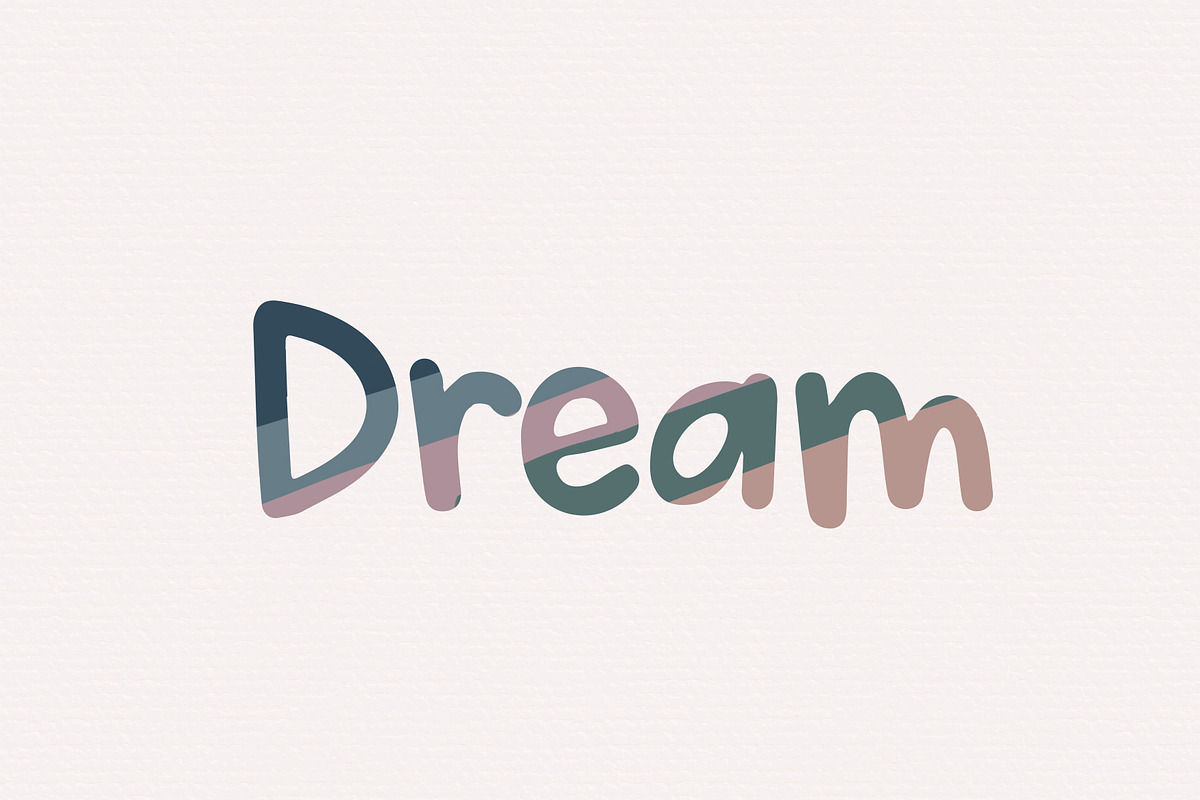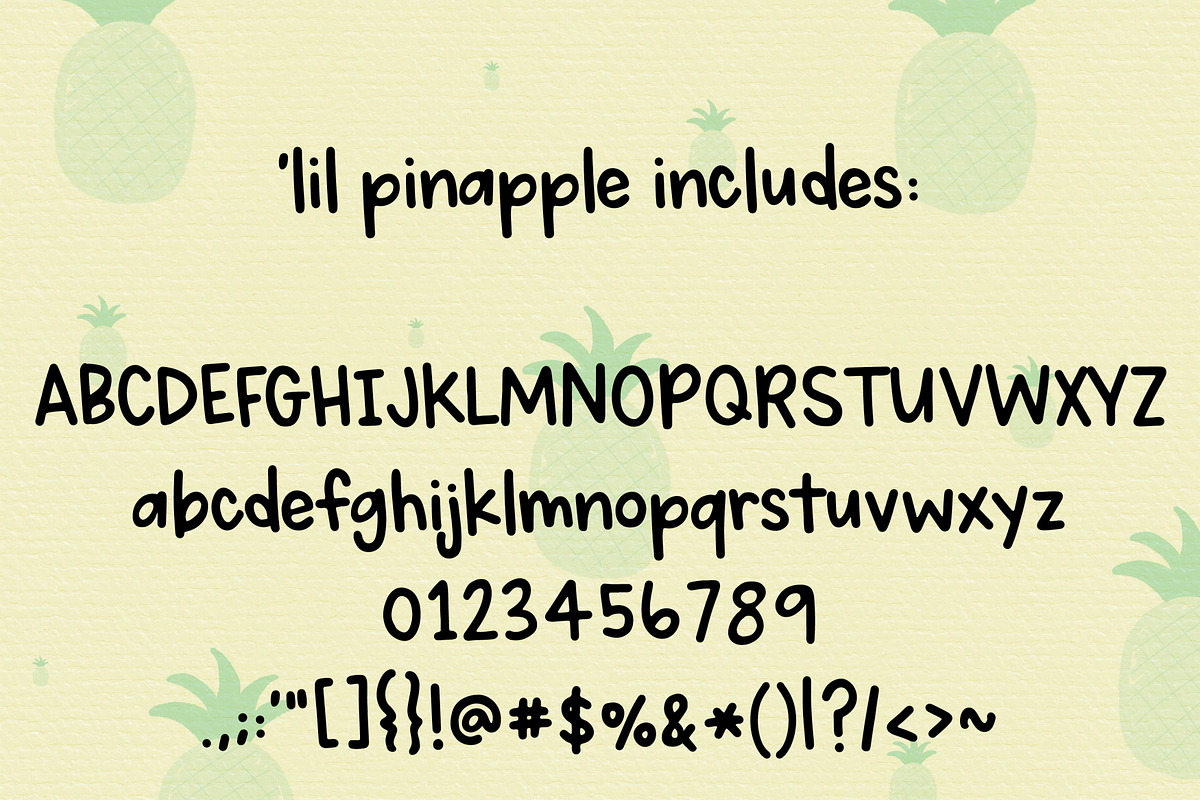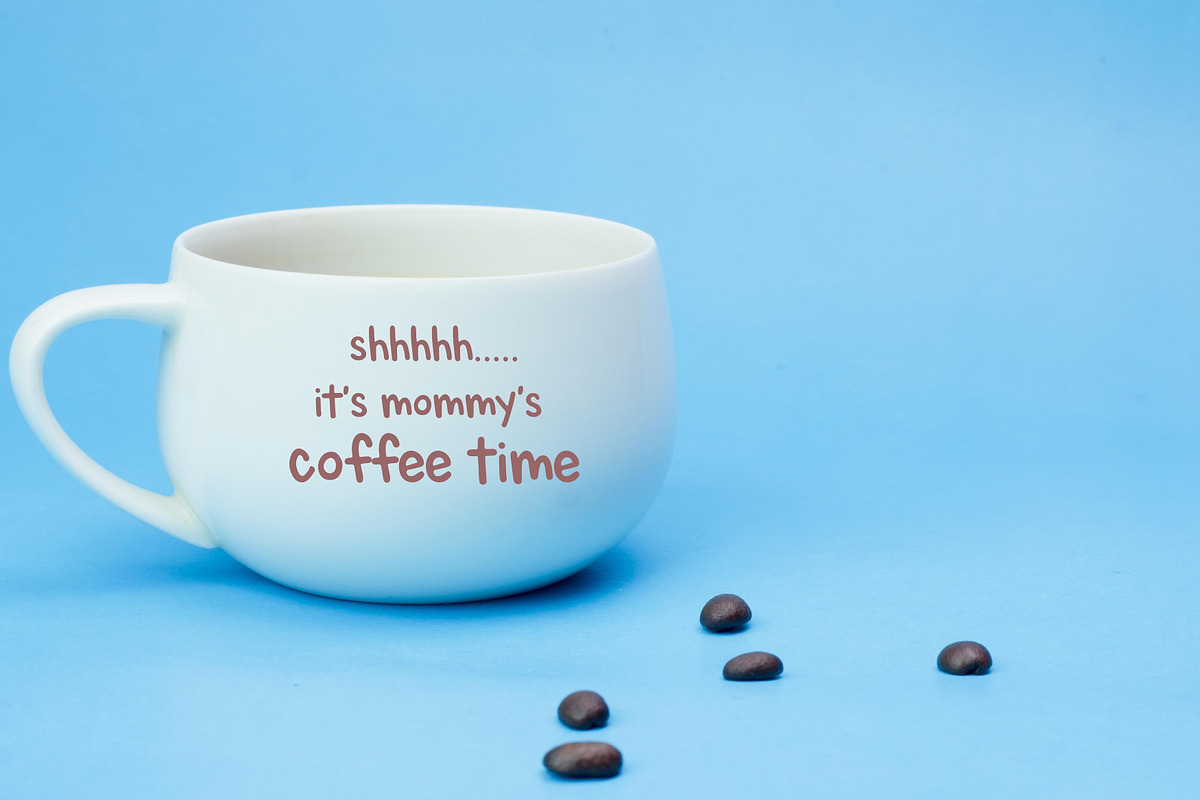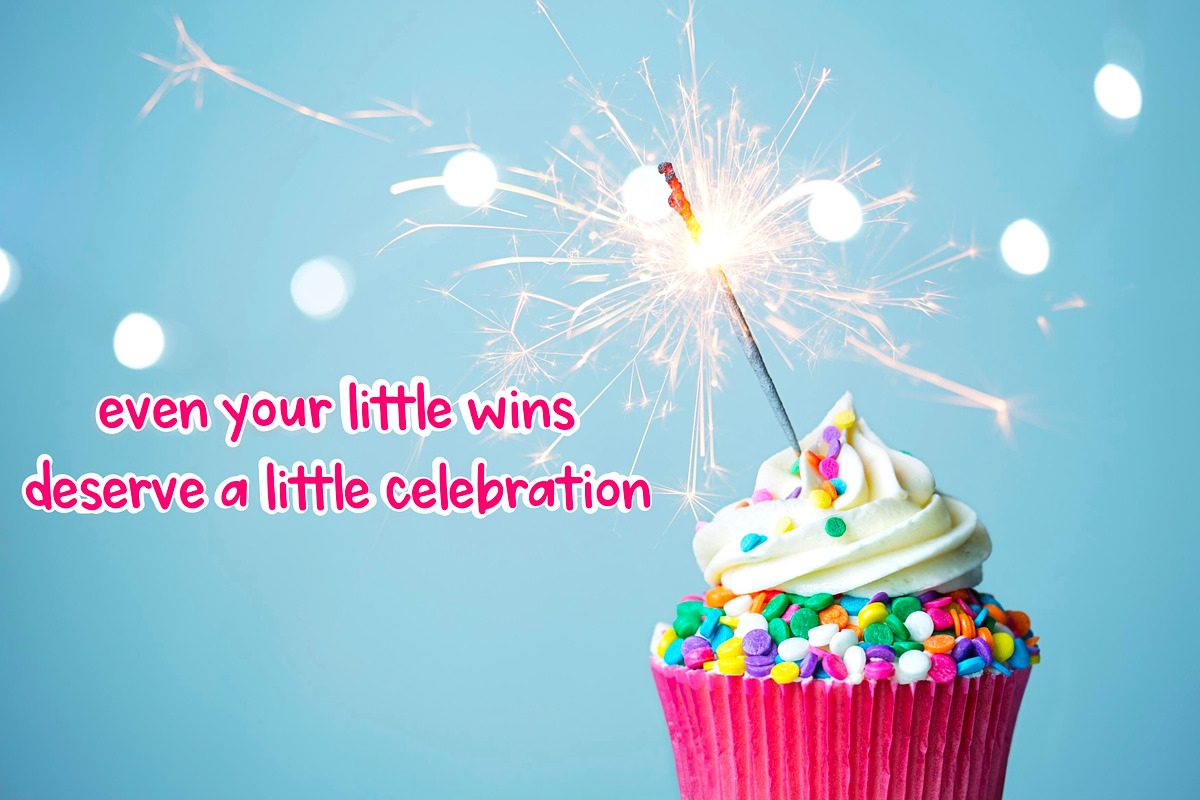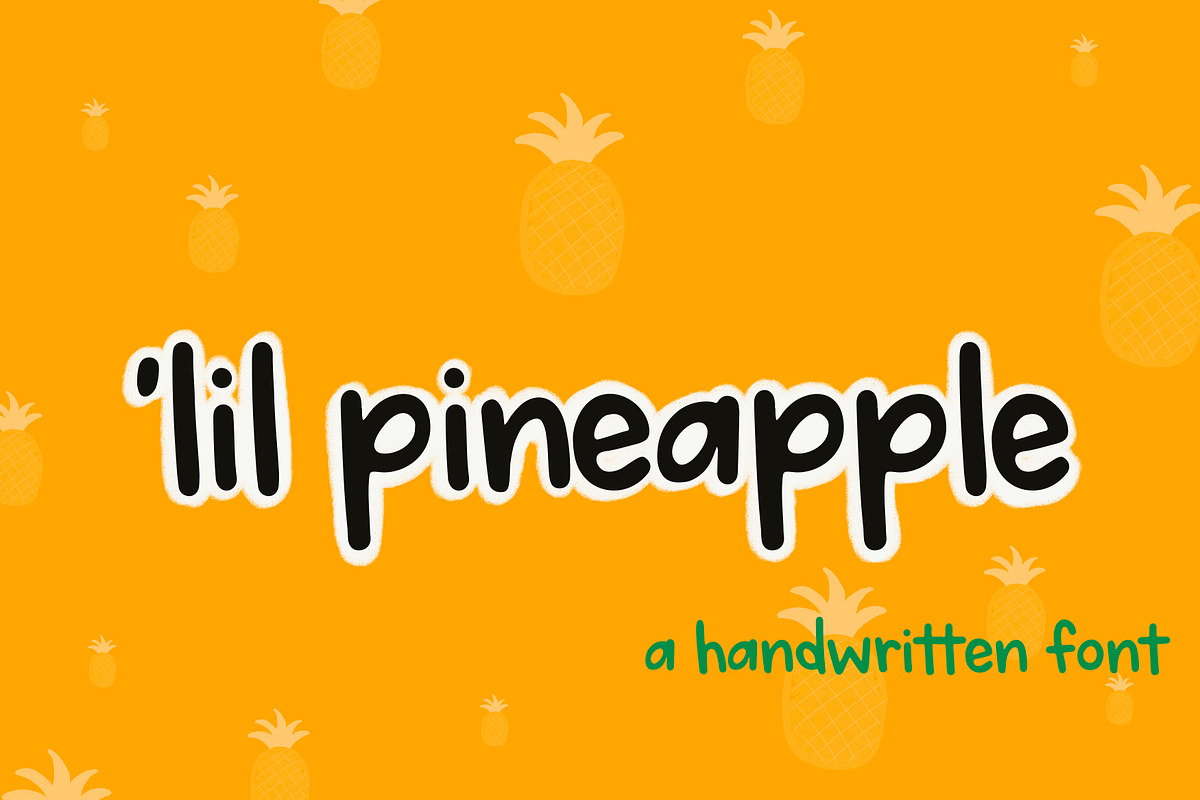
'lil pineapple Handwritten Font
Grab 'lil pineapple and start creating! This adorably playful, handwritten print font is perfect for all your needs. Use 'lil pineapple for personal or commercial use for crafting, stickers, planners, t-shirts, note-taking, and more! Create a feel-good project with this happy 'lil font using any of your favorite programs, including Adobe, Canva, and Cricut crafting machine. Yep, it's PUA encoded! Need additional licensing options? Feel free to reach out to me for additional options.